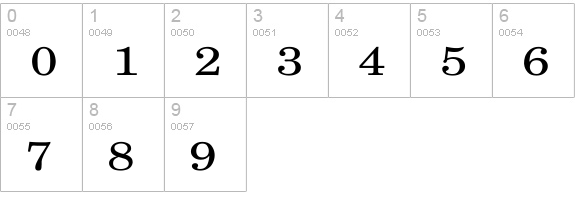
NewCenturySchlbk-Roman Wd Font Details
NewCenturySchlbk-Roman Wd is a classic and elegant font that exudes sophistication and timelessness. Its clean lines and balanced curves make it perfect for a wide range of design projects, from branding to invitations and everything in between. The font's versatile nature allows it to be used for both formal and casual applications, adding a touch of refinement to any design. One of the best things about NewCenturySchlbk-Roman Wd is that it is available for free download at FontsMarket.com. This means that you can easily access this high-quality font without any cost, making it a valuable addition to your font collection. Whether you are a professional designer or someone looking to enhance your personal projects, NewCenturySchlbk-Roman Wd is a fantastic choice that won't break the bank. Make your designs stand out with the timeless beauty of NewCenturySchlbk-Roman Wd. Download it for free today and elevate your creative projects with this stunning and versatile font.